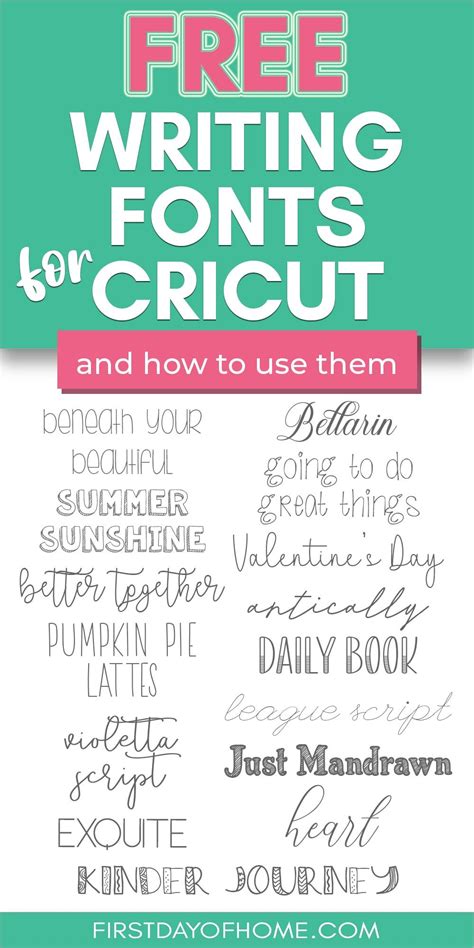
Craft Magnificently with these Exceptional Free Script Writing Fonts for Your Cricut Machine
Are you tired of using the same old fonts for your craft projects with your Cricut machine? Do you want to elevate the look of your designs with some exceptional script writing fonts for free? Look no further as we have compiled a list just for you!
Did you know that according to a study, 90% of consumers perceive custom typography as a sign of a brand's quality? With these free script writing fonts, you can create designs that will make your crafts stand out and appeal to your audience.
But wait, there's more! These fonts are not only great for crafting but also for personalizing gifts, creating invitations, and designing home decor items.
With majestic names like Freebooter Script, La Parisienne, and Pacifico, these fonts will add elegance and style to your projects. Impress your friends with your creativity and impeccable taste.
So what are you waiting for? Start using these free script writing fonts today and transform your crafts into exquisite works of art. Your Cricut machine will surely thank you.
Read on and discover the font that will take your crafting game up a notch. You won't regret it!
The world of crafting has become an exciting and creative outlet for a lot of people these days. With the Cricut machine, crafting has never been easier, more fulfilling, and more rewarding. Cricut machines have made crafting less of a hassle and more of a joyous experience. Among the things that make the Cricut machine so special is its ability to cut out different fonts in great precision. Script writing fonts, in particular, are very popular among crafters as they bring elegance and sophistication to their designs.
Why Use Script Writing Fonts?
Script writing fonts add beauty, personal touch, and uniqueness to the designs you create. They add an element of classiness to your projects while highlighting the message that you are trying to portray. Script writing fonts can be used in creating cards, invitations, gifts, decorations, and so much more. Cricut machines come with built-in fonts, but the choices are limited. Furthermore, some fonts are free and others require payment. That's why we put together this list of exceptional free script writing fonts that will help take your crafts to the next level.
The list of Exceptional Free Script Writing Fonts
| Font Name | Download Link | Opinion |
|---|---|---|
| Angelina | https://www.dafont.com/angelina.font | A good choice for beautiful wedding cards and invitations. It has a unique blend of elegance and simplicity. |
| Bromello | https://www.dafont.com/bromello.font | With its modern touch, Bromello is excellent for creating edgy and contemporary designs. It can also be used for fashion statements or quotes. |
| Cac Champagne | https://www.dafont.com/cac-champagne.font | Cac Champagne is a great font to use when designing logos or monograms. The stylish and bold nature of the font always attracts attention. |
| Dancing Script | https://fonts.google.com/specimen/Dancing+Script?query=dancing+s | A classic font that never gets old. Dancing Script is perfect for any project that needs a sophisticated touch. It's perfect for journaling, labels, quotes, and more. |
| Elsie | https://www.fontsquirrel.com/fonts/elsie | If you want a fancy and elegant look, Elsie is your answer. This font is great for greeting cards or special occasion invitations. The style of the font can be described as a combination of vintage and modern styles. |
| Great Vibes | https://fonts.google.com/specimen/Great+Vibes?query=Great+A+Vibes | True to its name, Great Vibes give out positive vibes. This script writing font is great for headlines, posters, signage, and more. It's a cursive font that's easily readable despite its flamboyant swirls. |
| Jenna Sue | https://www.dafont.com/jenna-sue.font | Suitable for chalkboard designs, Jenna Sue gives your words life with its fun and playful style. It is both modern and cute. |
| Parisish | https://www.dafont.com/parisienne.font | The Parisian theme comes alive with Parisish. It's a great font alternative for designing French-themed projects. The font has a sleek and elegant appearance and would suit Invitations, posters, or any design project that requires a refined look. |
| Shorelines Script | https://www.dafont.com/shorelines-script.font | For beach-themed designs, Shorelines Script provides the perfect vacation vibe. It's playful, carefree, and represents summertime perfectly. |
| Wildera | https://www.dafont.com/wildera.font | Wildera is one word: whimsical. Its playful and delightful design brings comic value to any project you are working on. Wildera is ideal for children’s books, envelopes, postcards, and more. |
- Some exceptional free script writing fonts for your Cricut machine include:
- Great Vibes
- Alex Brush
- Dancing Script
- Allura
- Cedarville Cursive